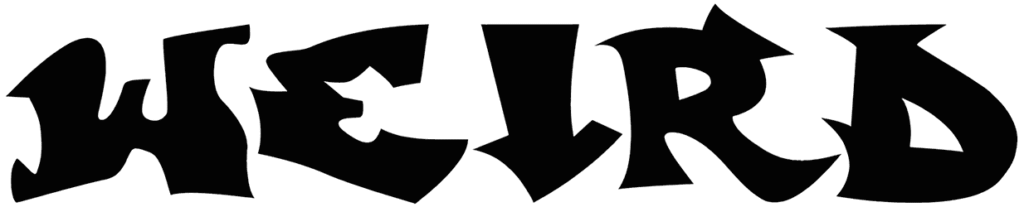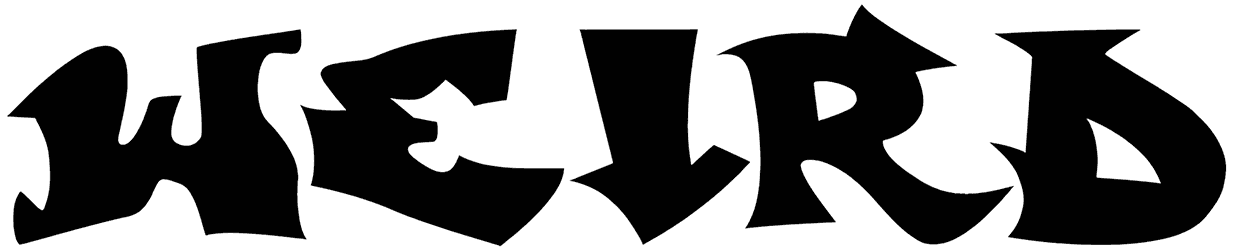
Weird Font
Let’s trim a cool design with a street art style and start an energetic promotion. As a graffiti font, Weird consists of a distinct hand-drawn letter face that will make your words more impressive. With almost full support for characters, the Weird font will act as an ideal pickup for lots of projects like apparel, packaging, flyers, and more of the same.